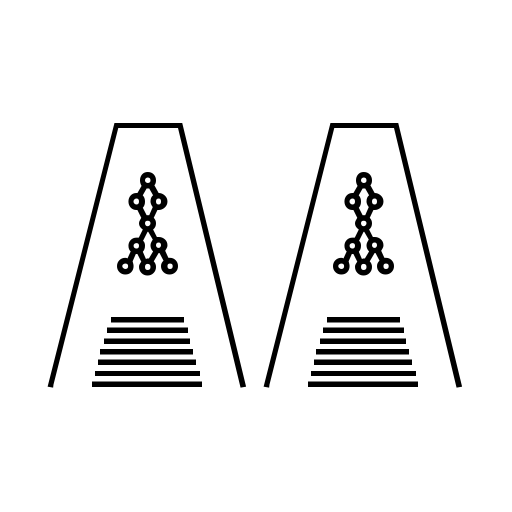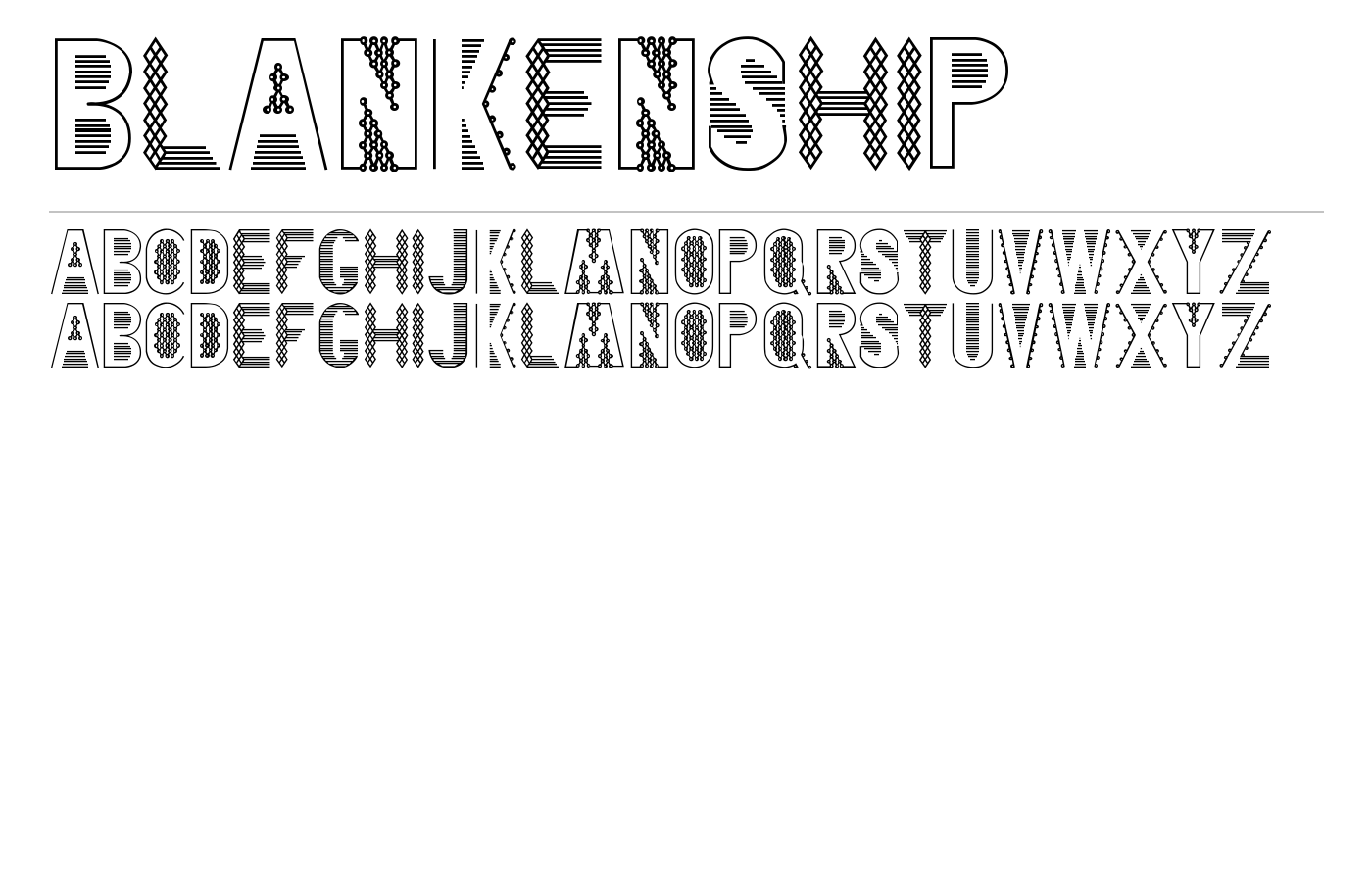
Blankenship is a bold and decorative sans serif font featuring uppercase letters with intricate internal patterns of lines and dots that create a dynamic textured effect. Its playful and artistic style makes it ideal for creative headlines, logos, and posters where a unique and eye-catching display is needed. This font brings a modern, fun personality best suited for standout branding and design projects that seek to make a strong visual impression.
Blankenship Font
About Blankenship Font